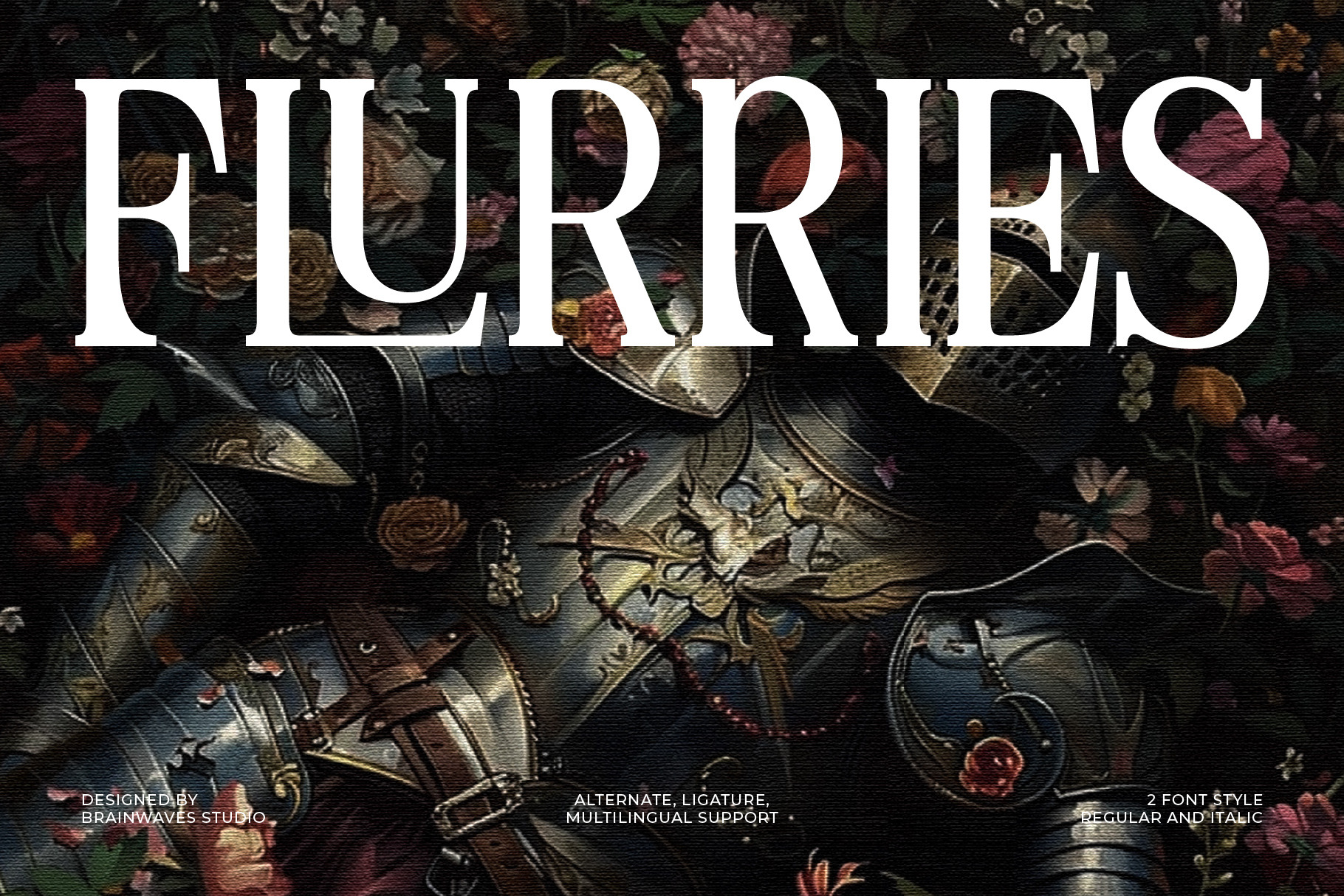
Flurries - Serif Display Font
Flurries is a modern serif font that strikes the perfect balance between boldness and elegance. Whether you’re designing for luxury brands, creating standout headlines, or adding a unique touch to your logos, Flurries has you covered.
It’s versatile, stylish, and easy to use—perfect for bringing your creative ideas to life. Try Flurries and give your designs that extra edge they deserve!